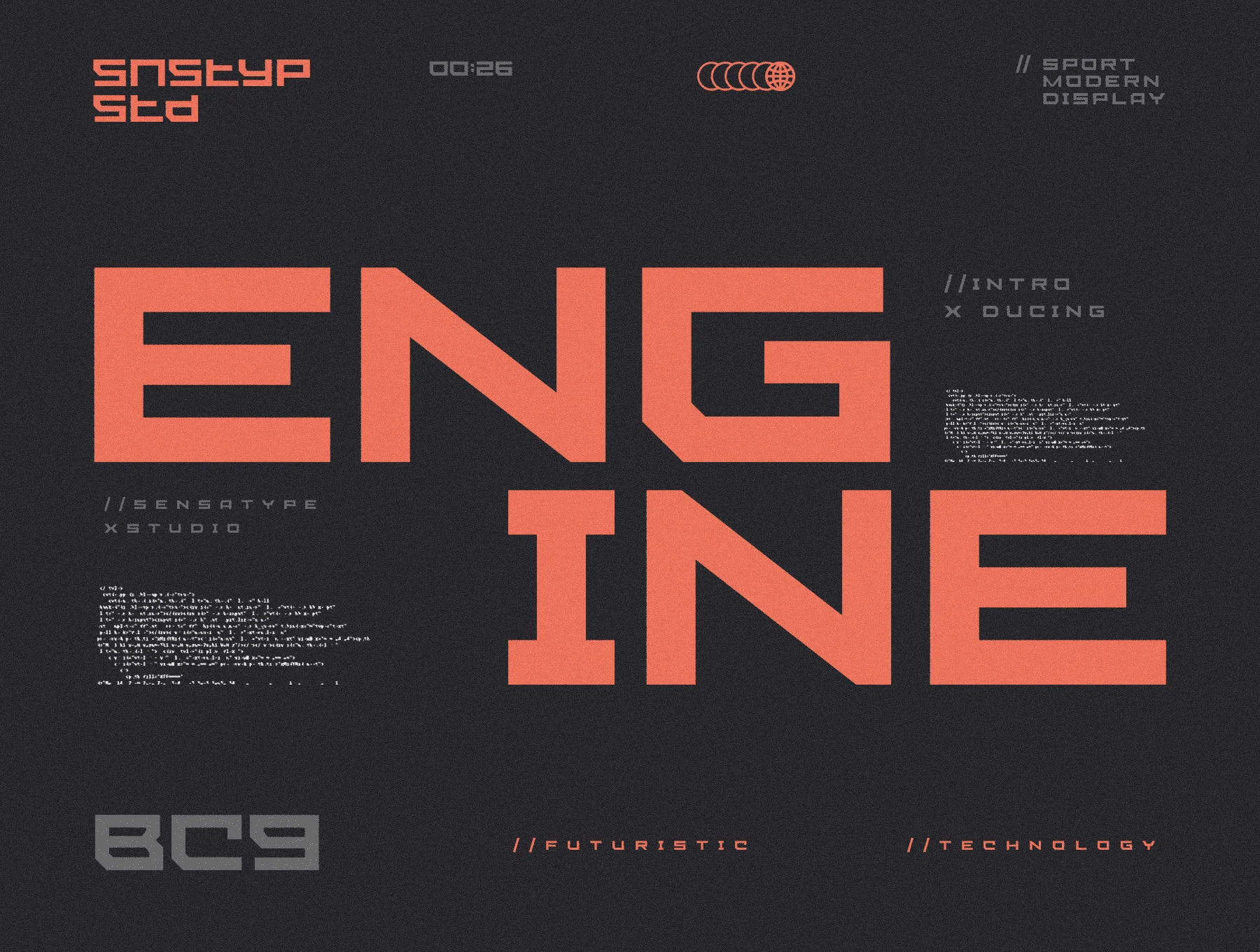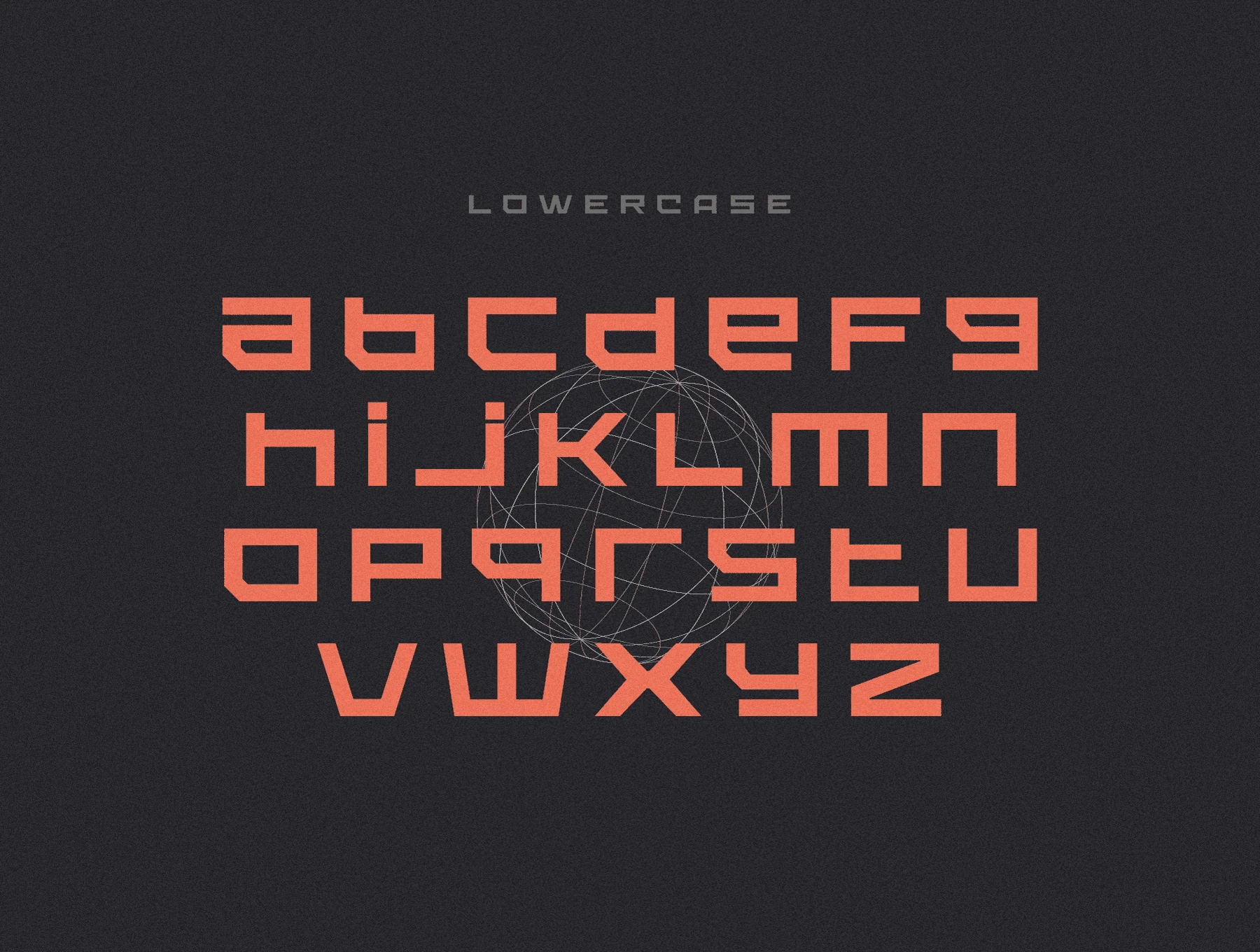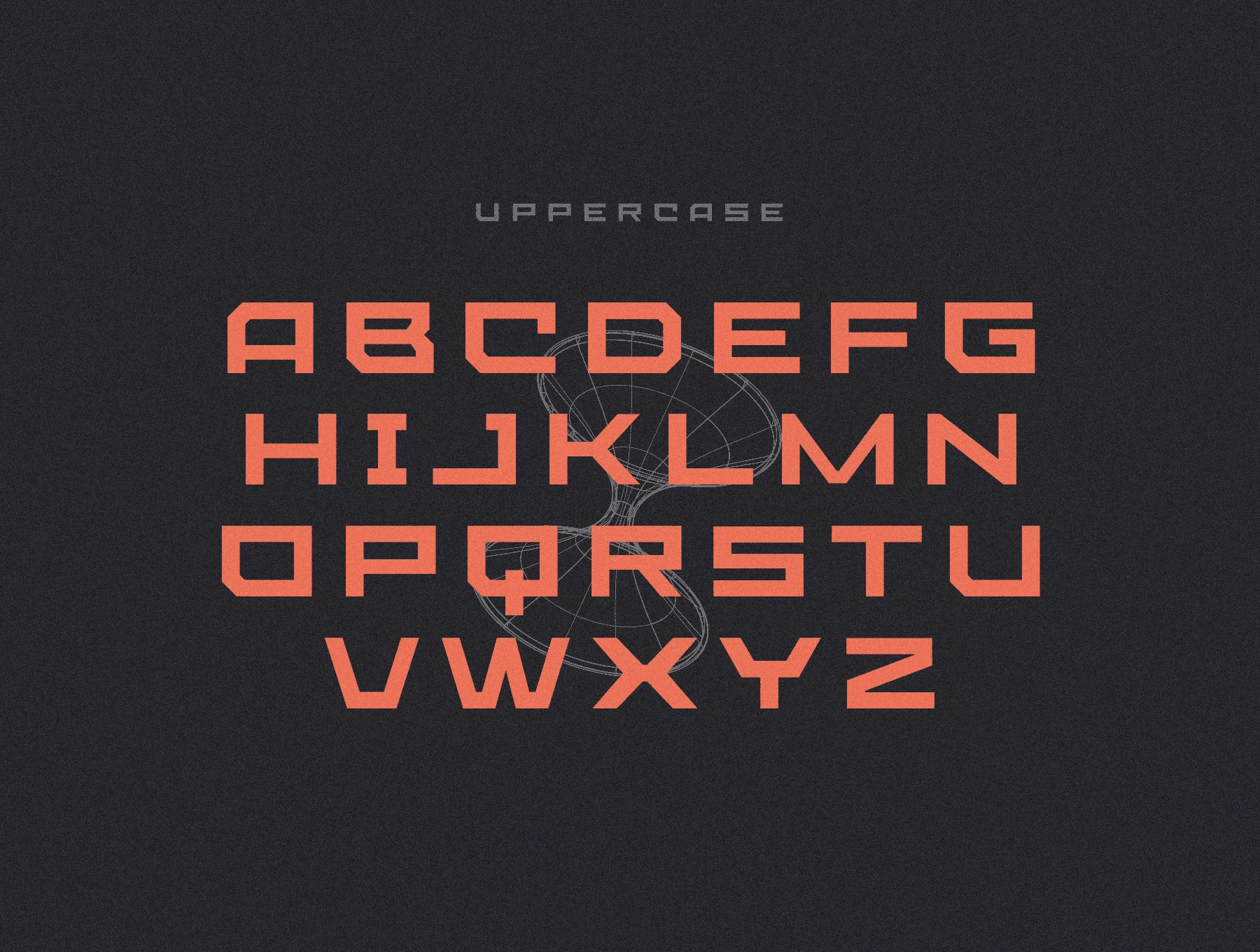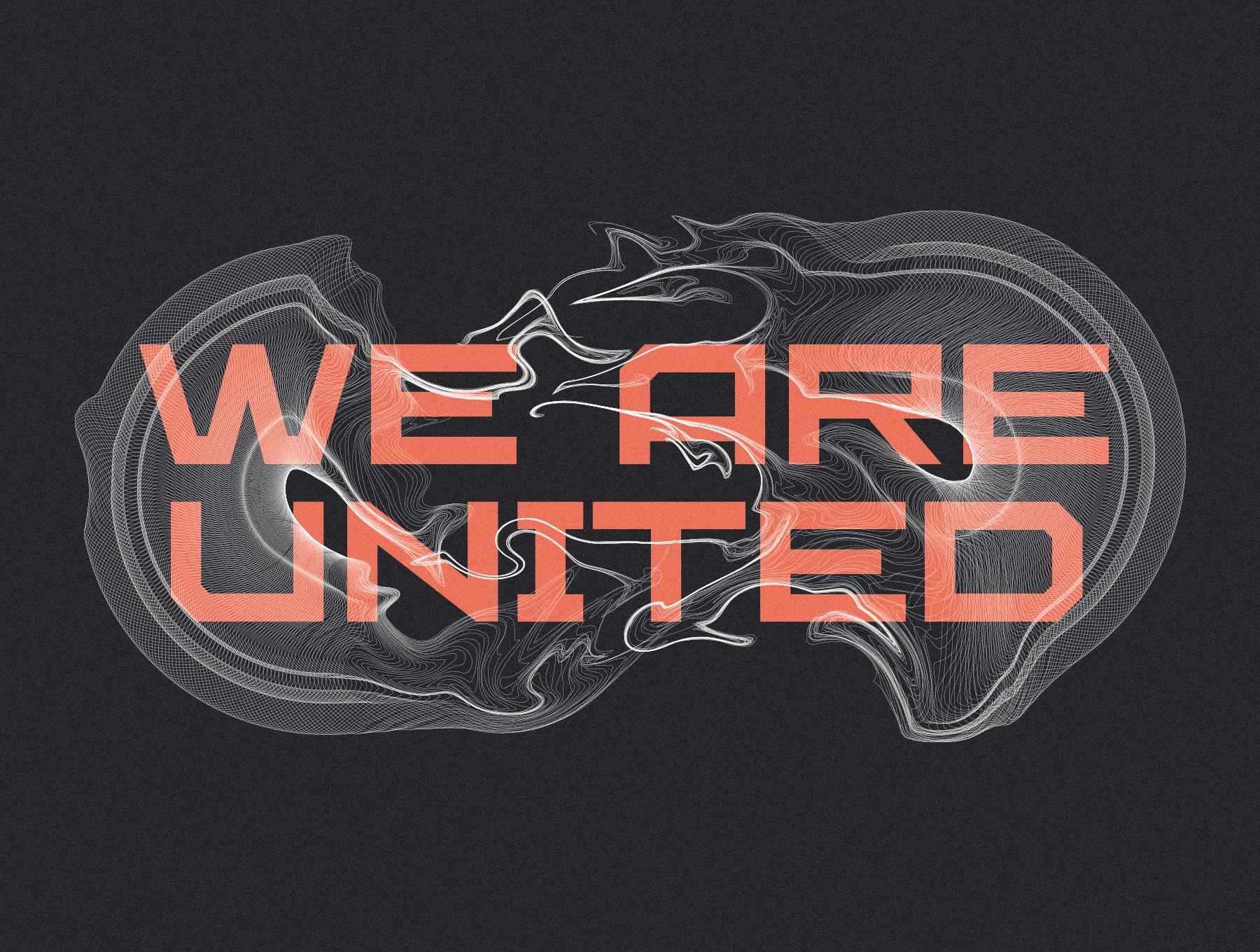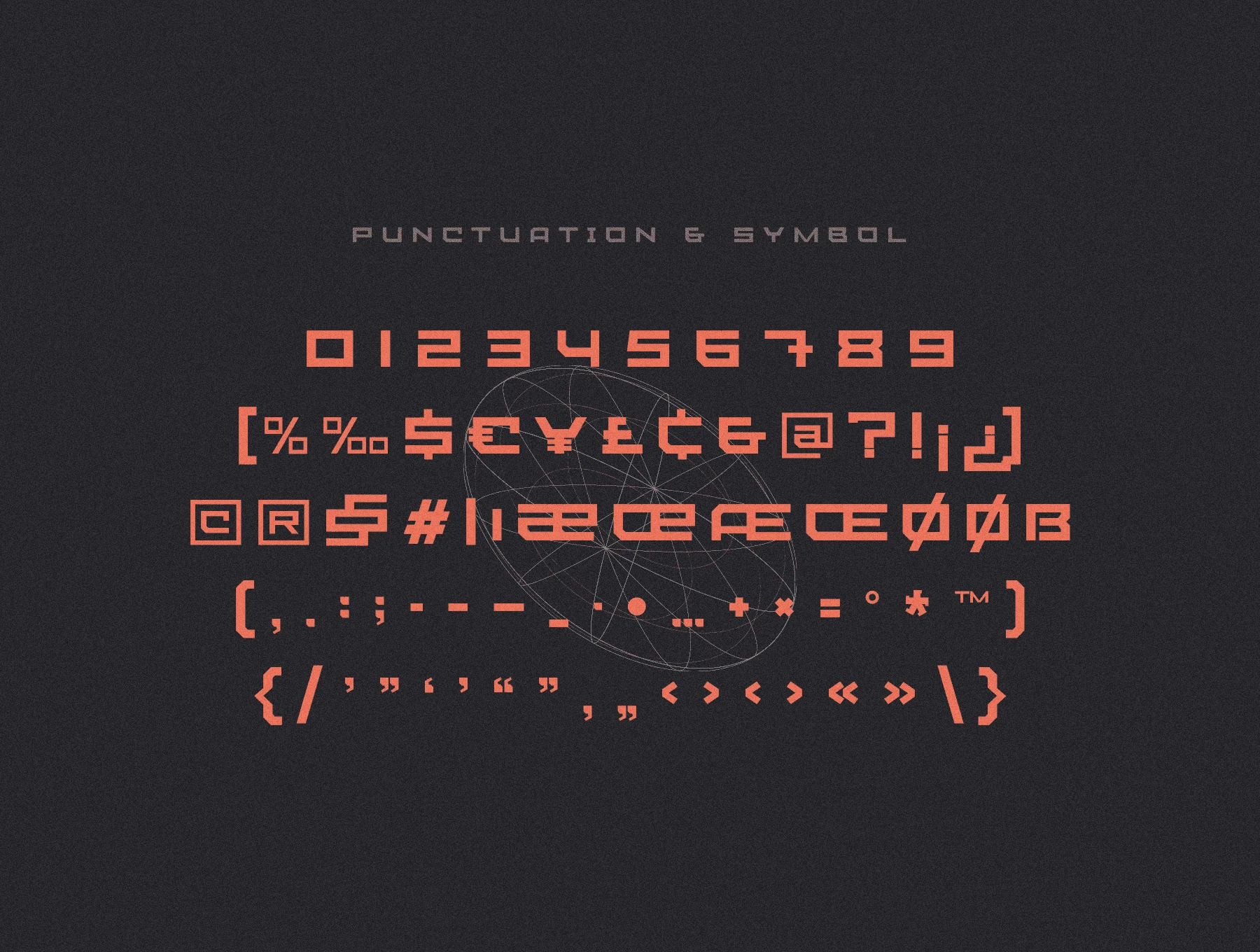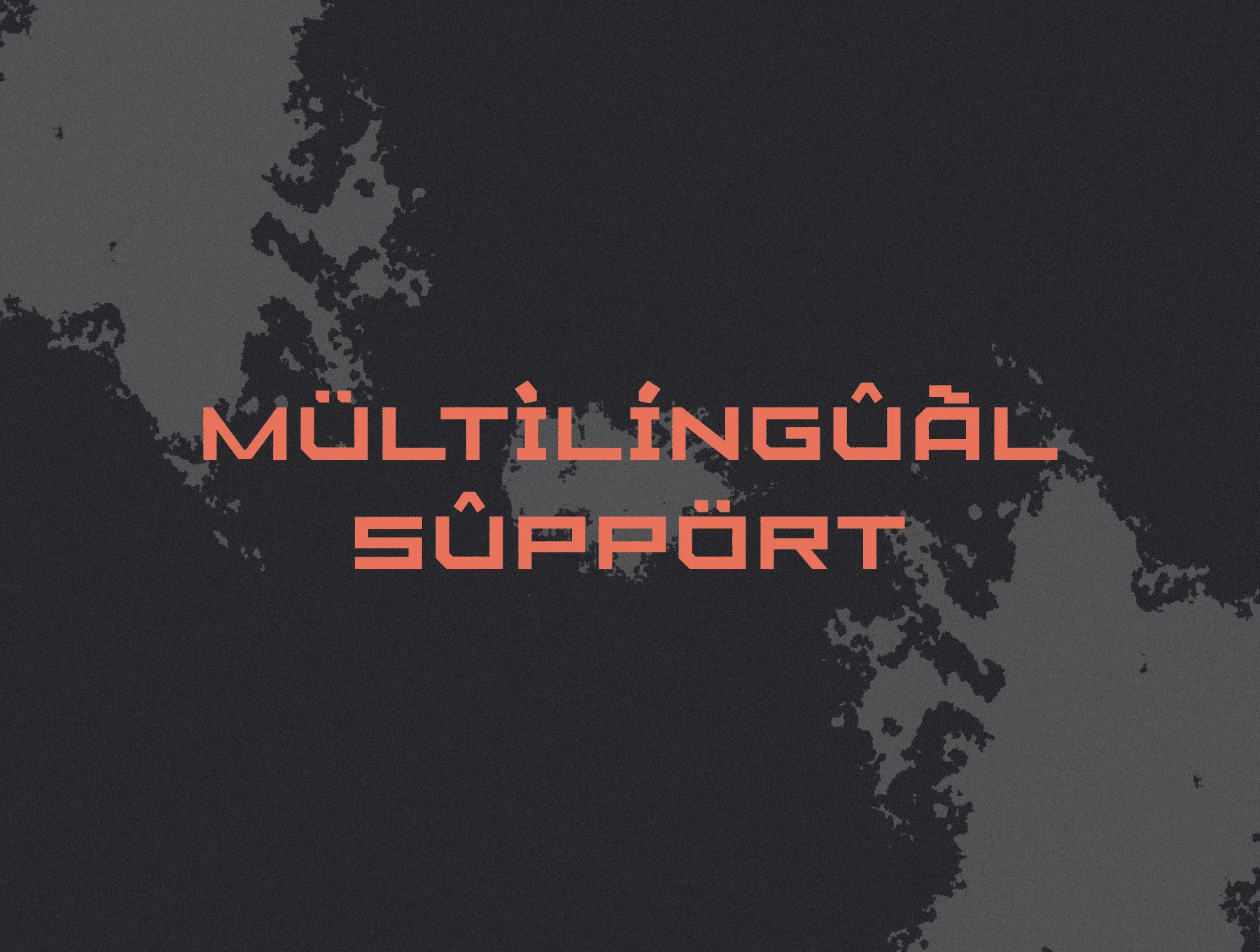
Engine Font
Engine – Contemporary Athletic Typeface
Engine is a modern sporty font designed for branding, titles, and striking typography in sports or action projects. Its bold, contemporary look fits themes like technology, combat, and high-energy visuals, helping your headlines and creative work express a strong central idea.